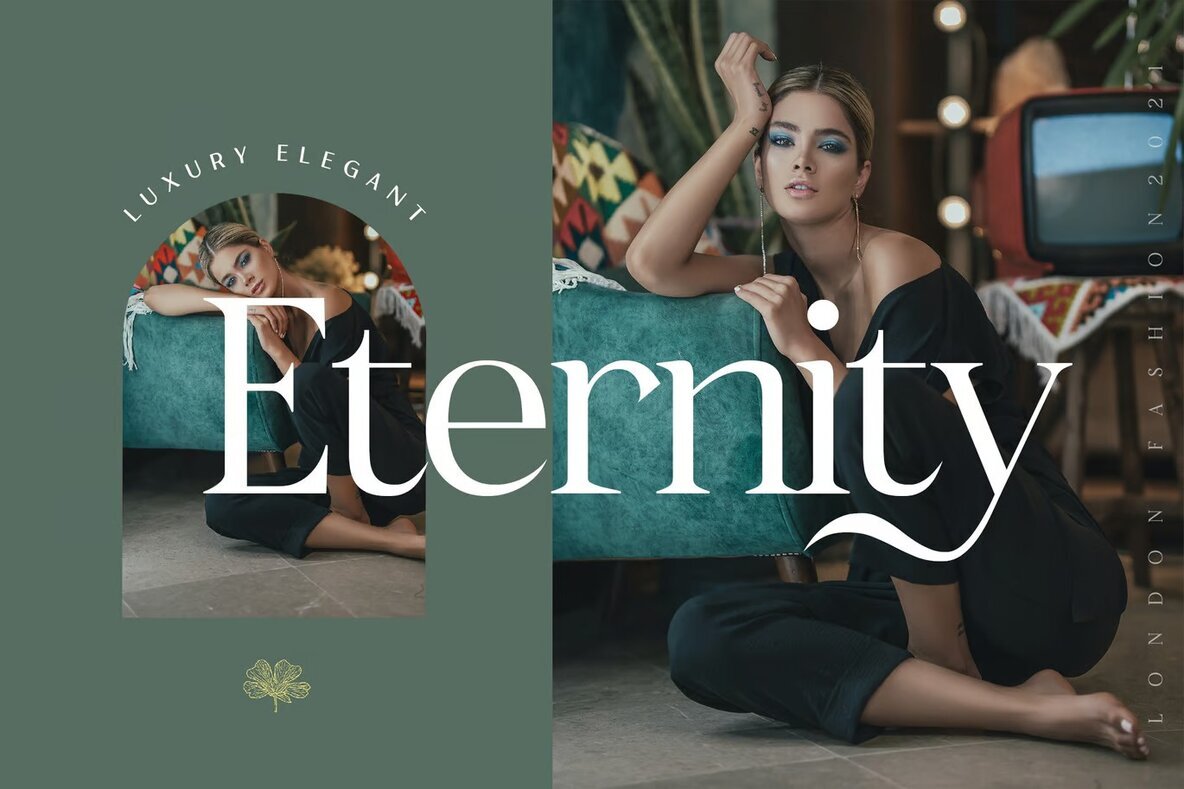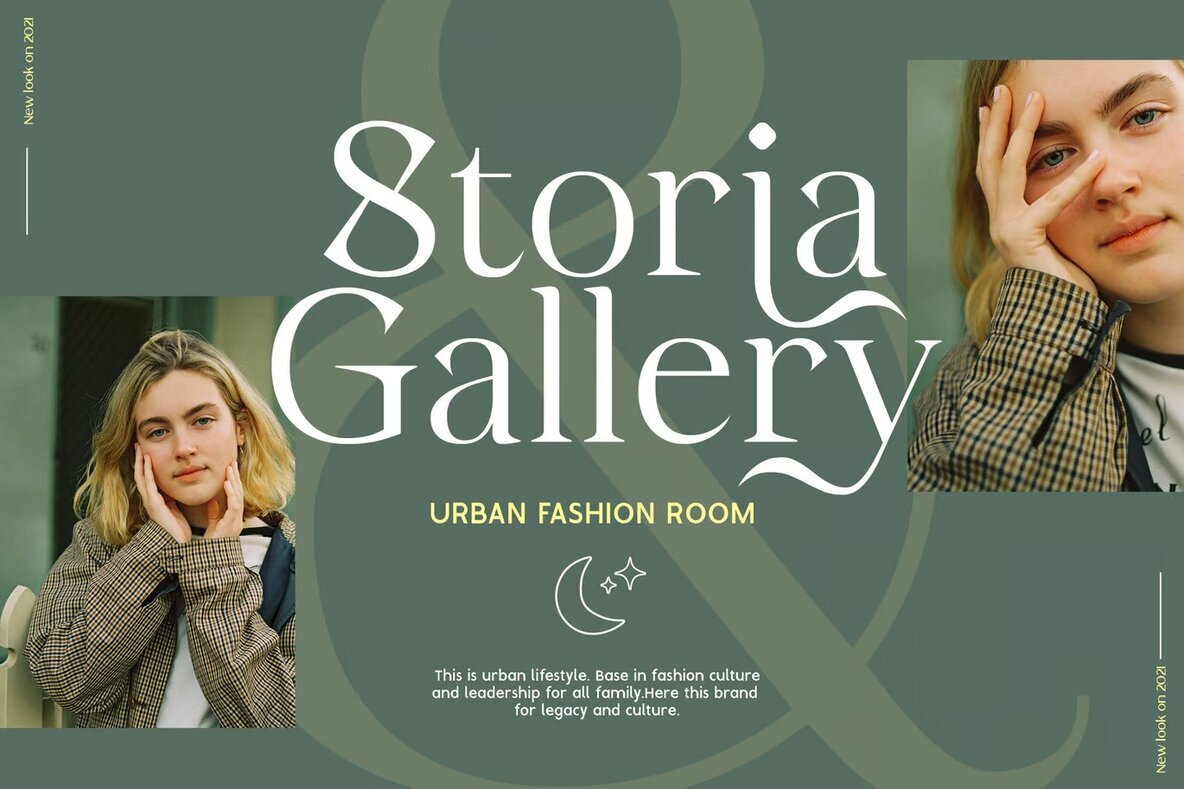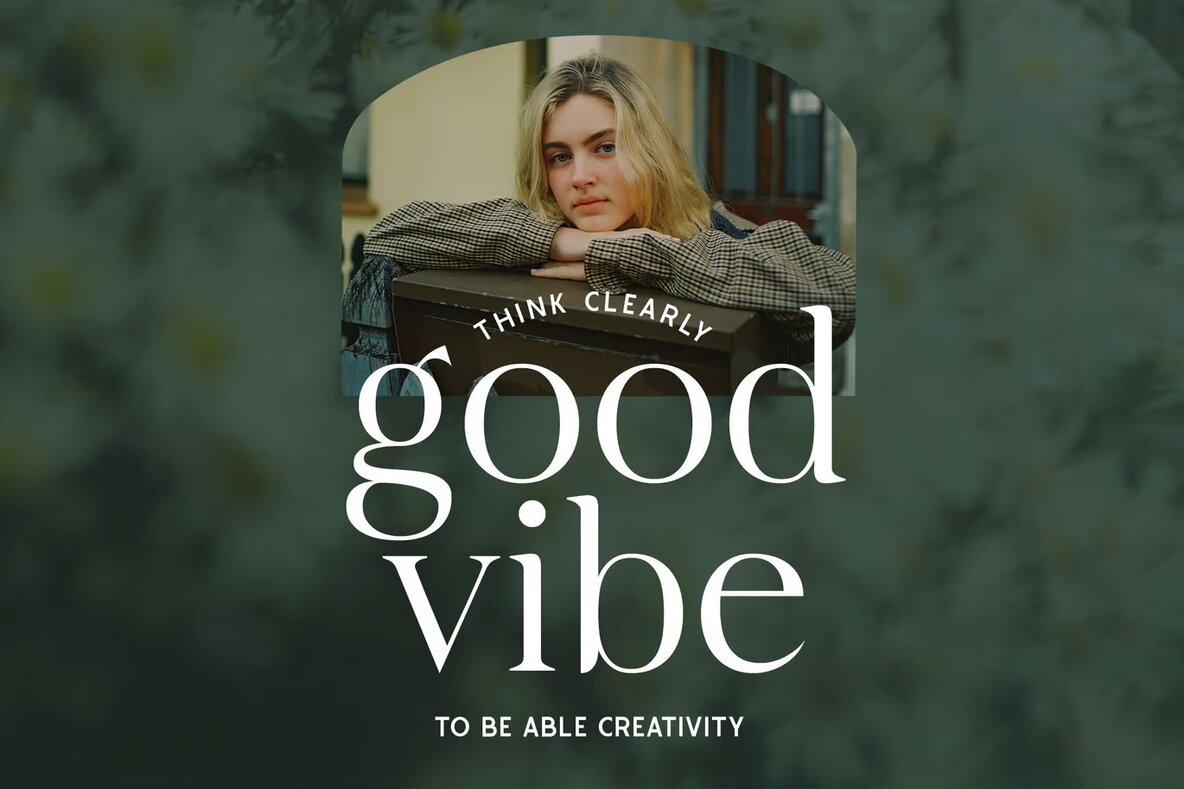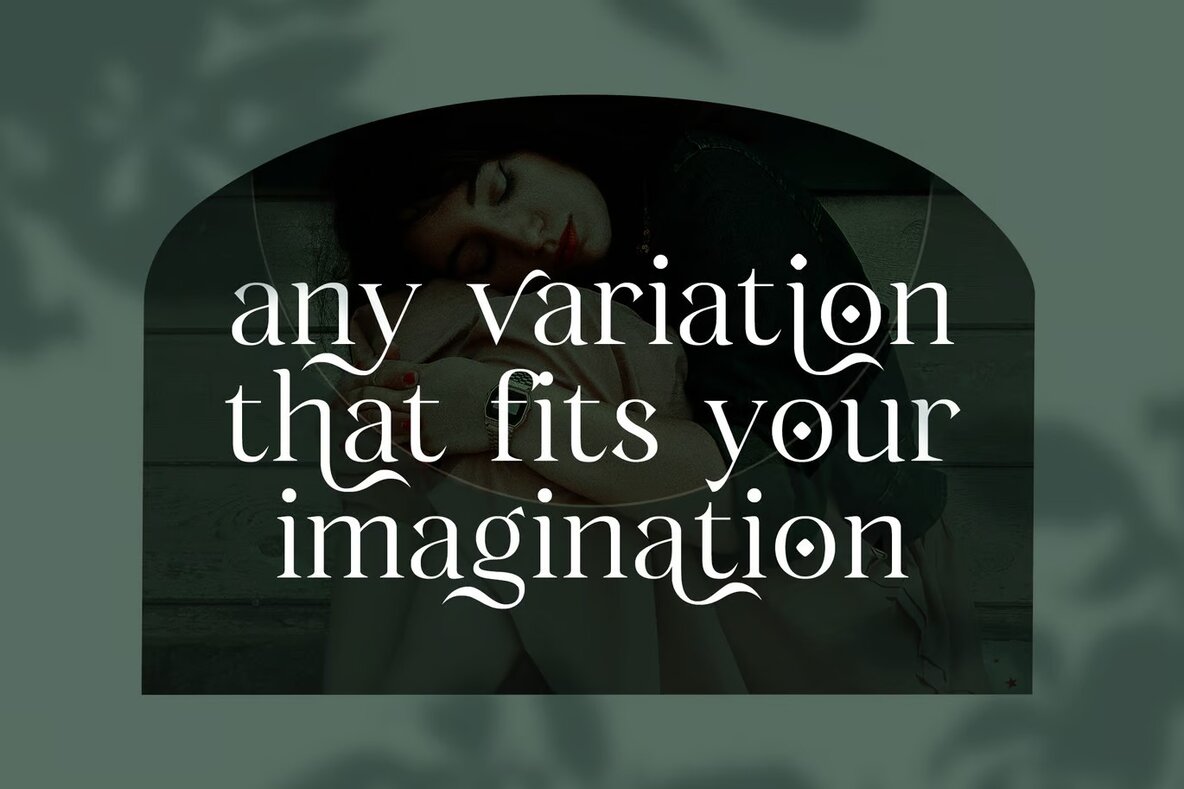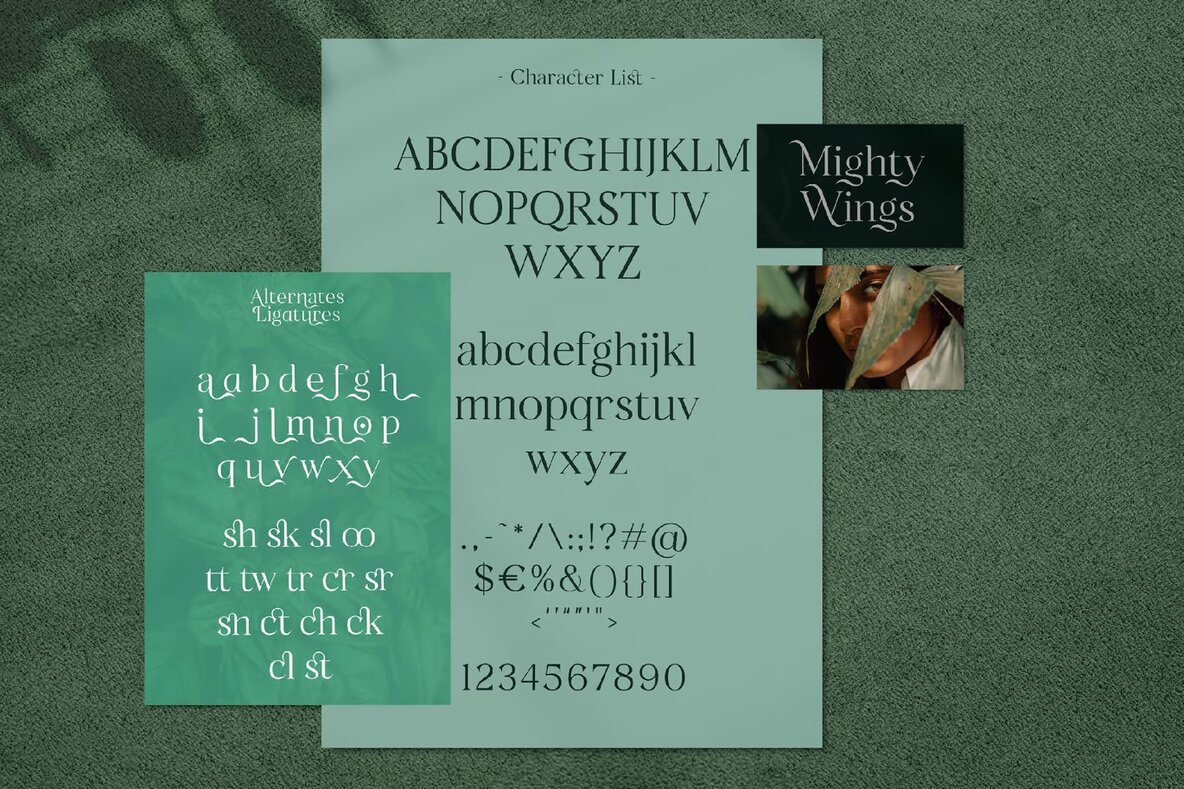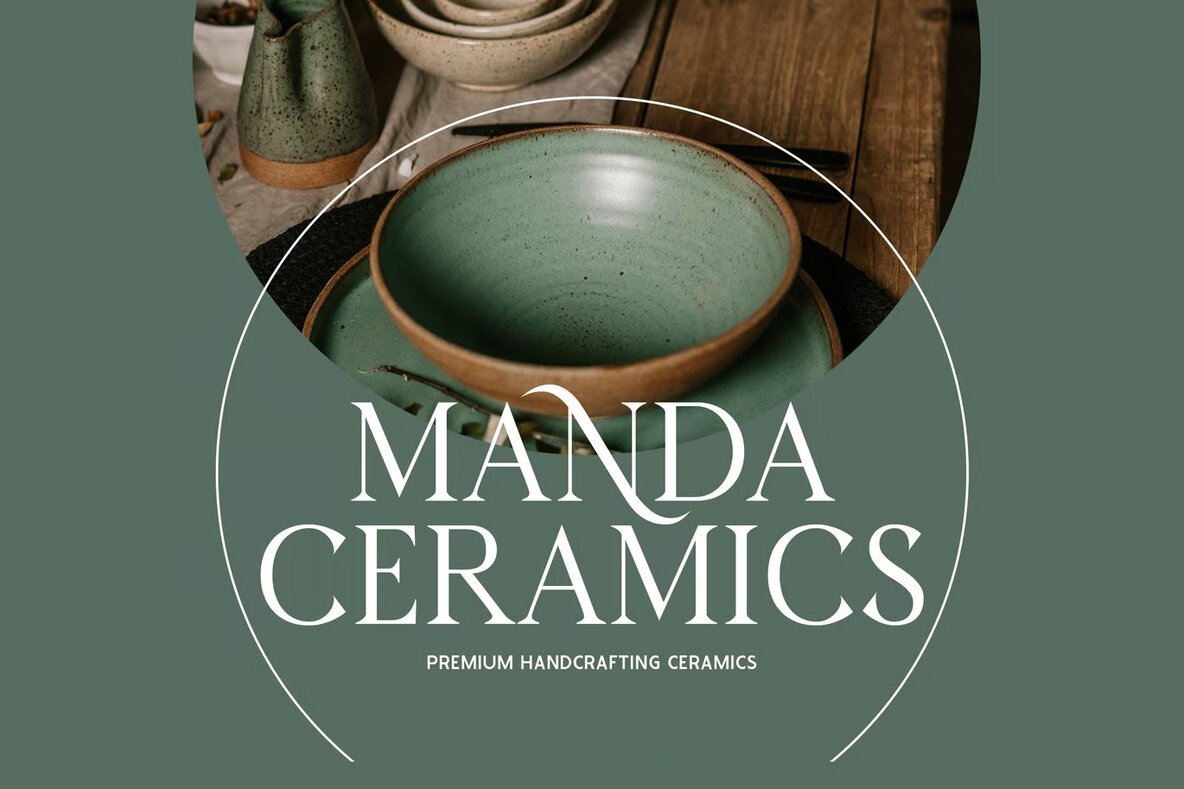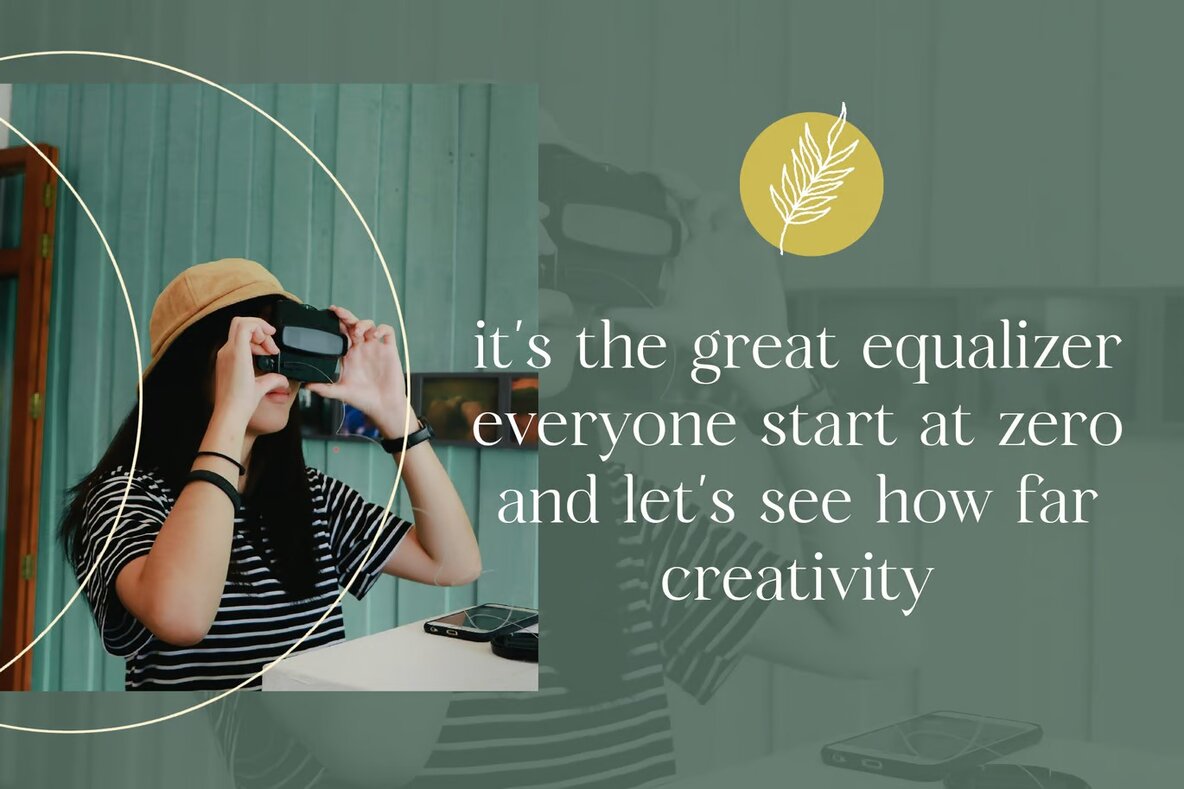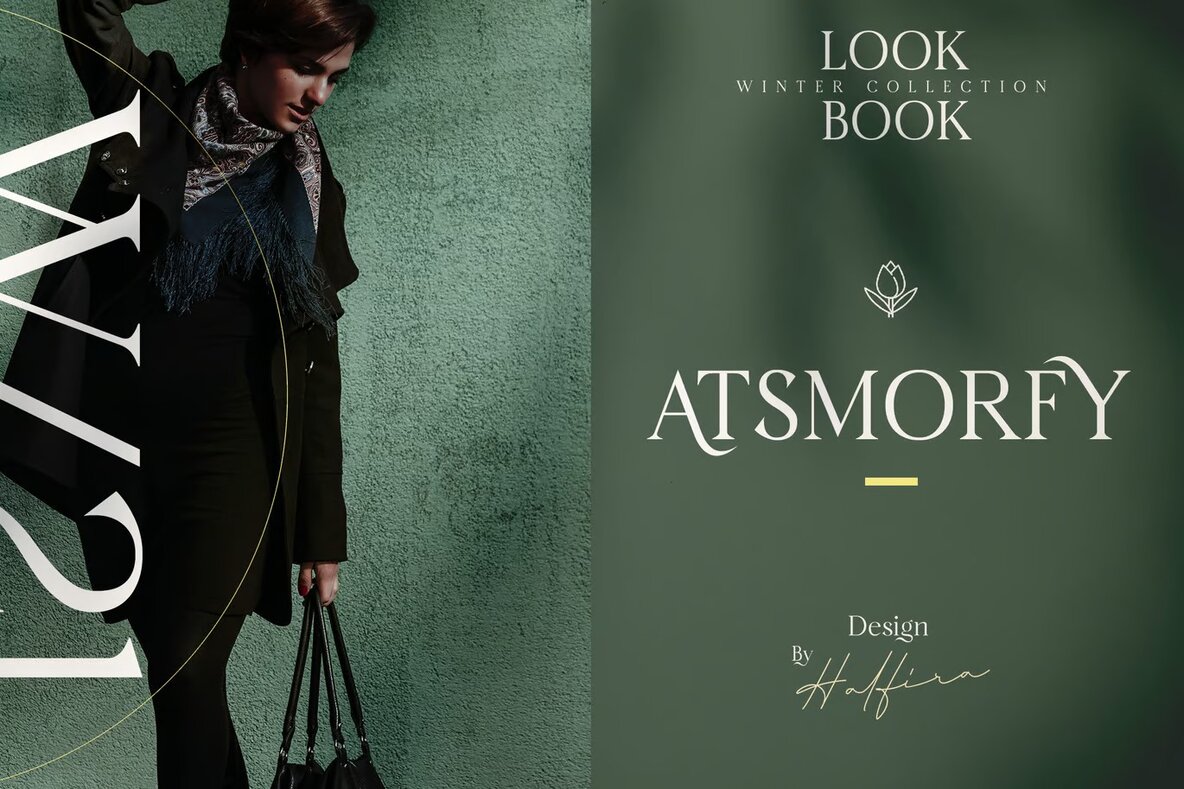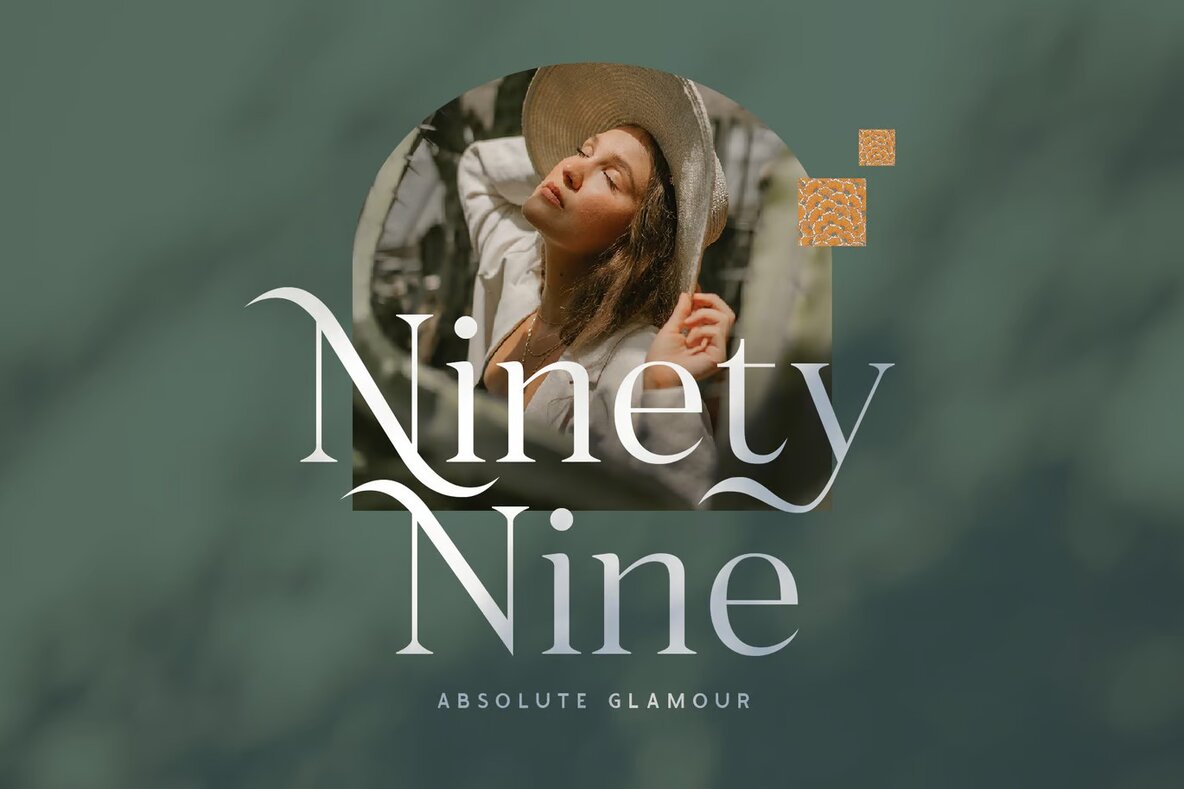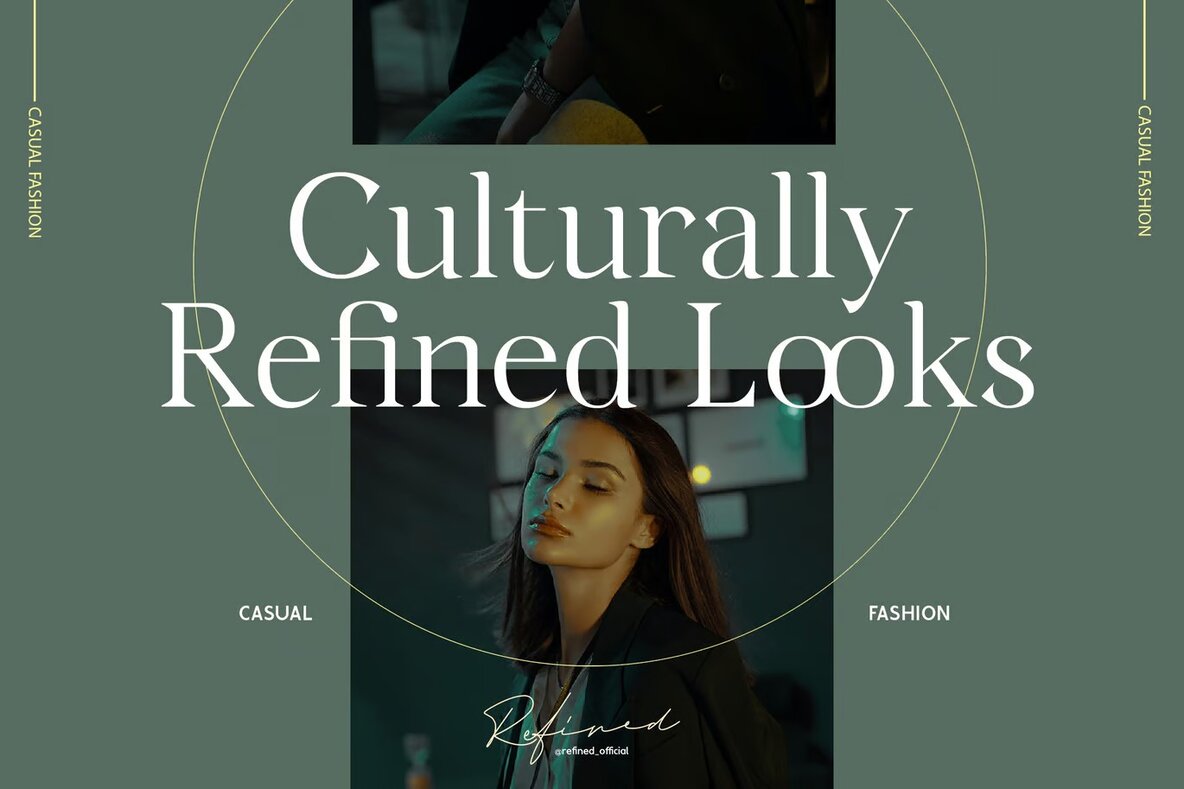
Mighty Wings Font
Mighty Wings Regular
Introducing an elegant and sophisticated serif typeface designed to embody feminine beauty and luxury. This font offers a selection of alternates and ligatures, allowing you to craft unique and stunning typography for various design needs. Its versatility makes it an excellent choice for luxury logos, refined branding projects, and sophisticated editorial designs.
Whether you're working on women's magazines, cosmetic branding, fashion promotions, or art gallery identities, this font can enhance your creative efforts. It's also perfect for stationery, blog designs, modern advertising, and home décor projects. Use it to make a bold statement in special event invitations, book titles, or any other project where elegance is key.